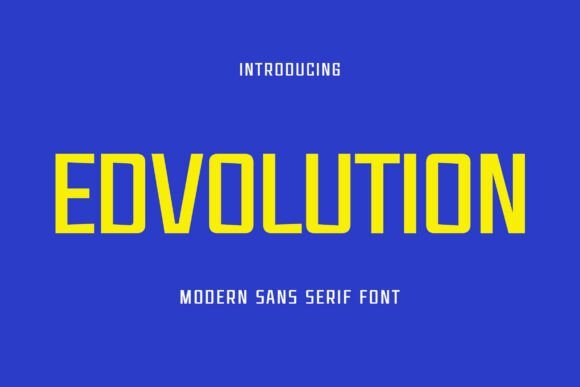
Introduction to Edvolution Font
Edvolution is a clean, geometric sans serif font with a futuristic feel and strong visual impact.
Designed for clarity and structure, it’s ideal for tech, education, and professional branding Its sharp edges and versatile form ensure standout results in both digital and print design.
Edvolution Font offers exceptional quality and versatility, making it a valuable addition to your design toolkit. Whether you’re creating for personal projects or commercial use, Edvolution Font delivers professional results.